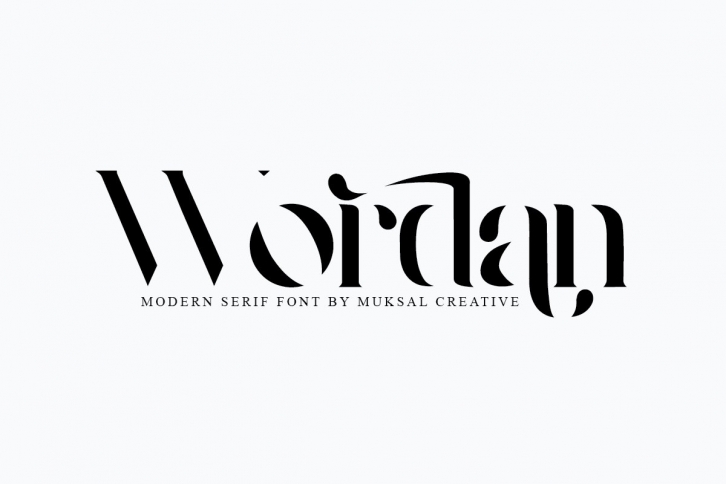
Wordan is a gorgeous font that was realeased on January 23, 2021. The font can be used in many style contexts and design environments. Perfect for invitations, magazines, websites, logos, and more! It was designed by Muksalmina and the file size is 11.31 MB. Thanks for checking out this font!